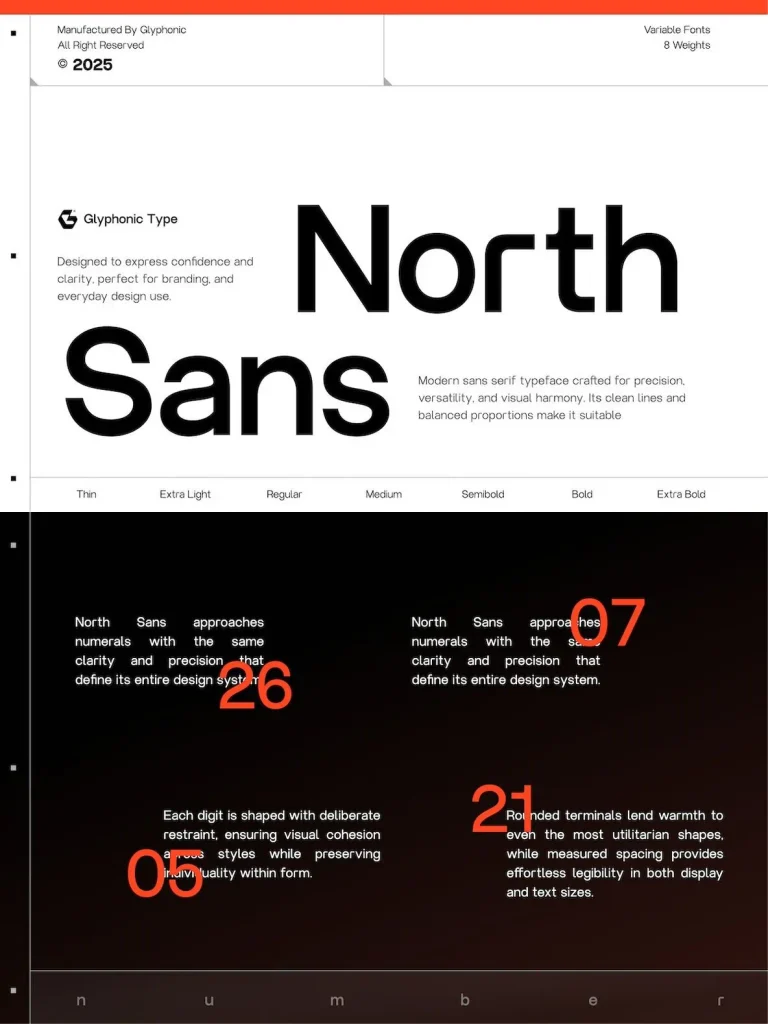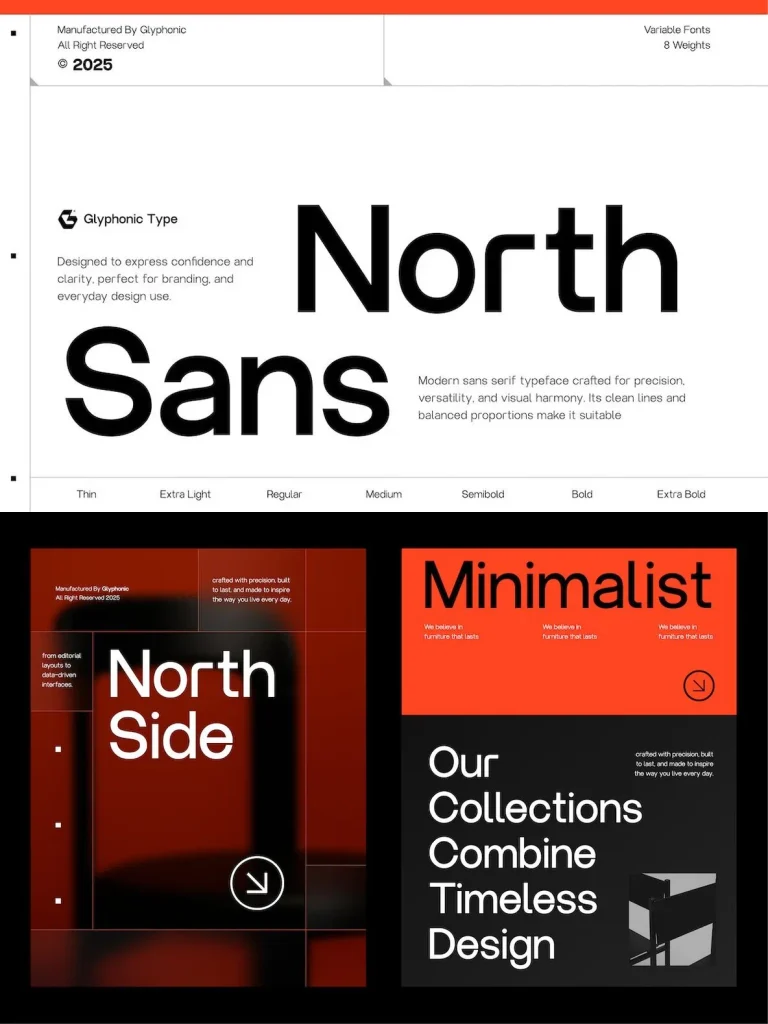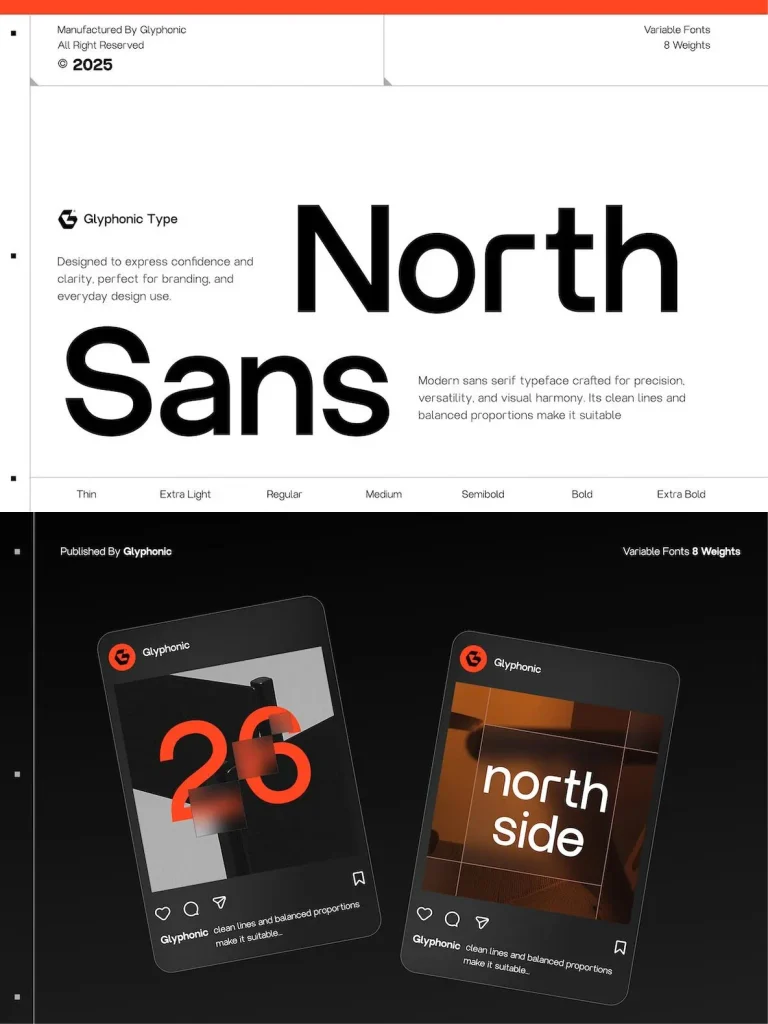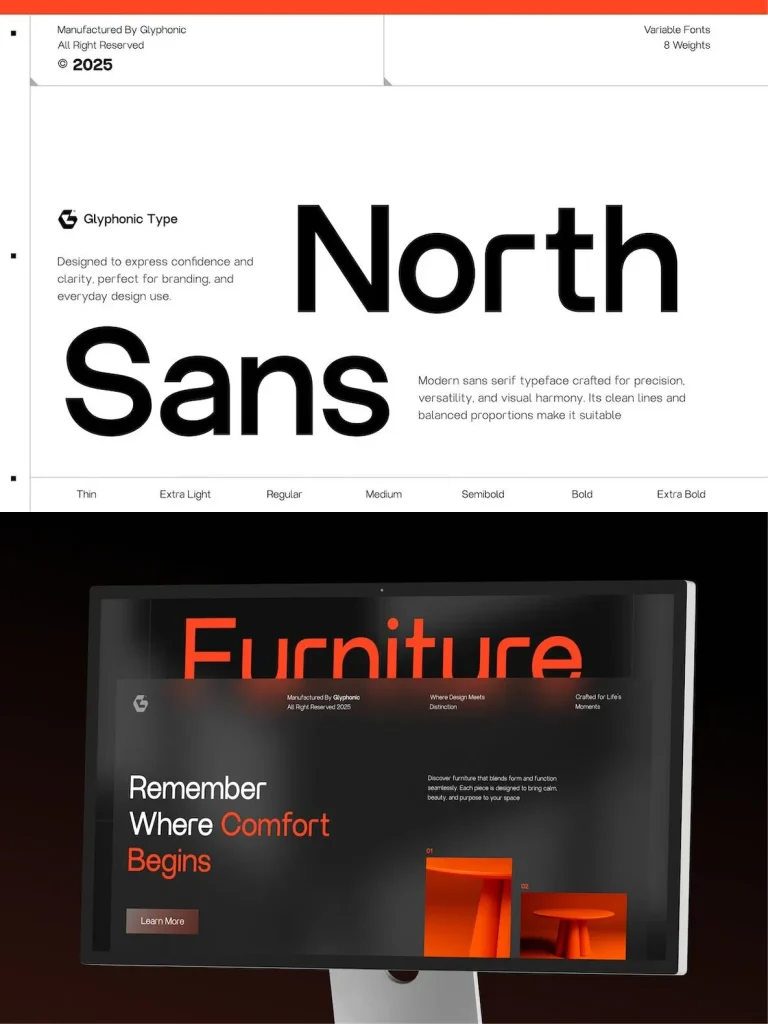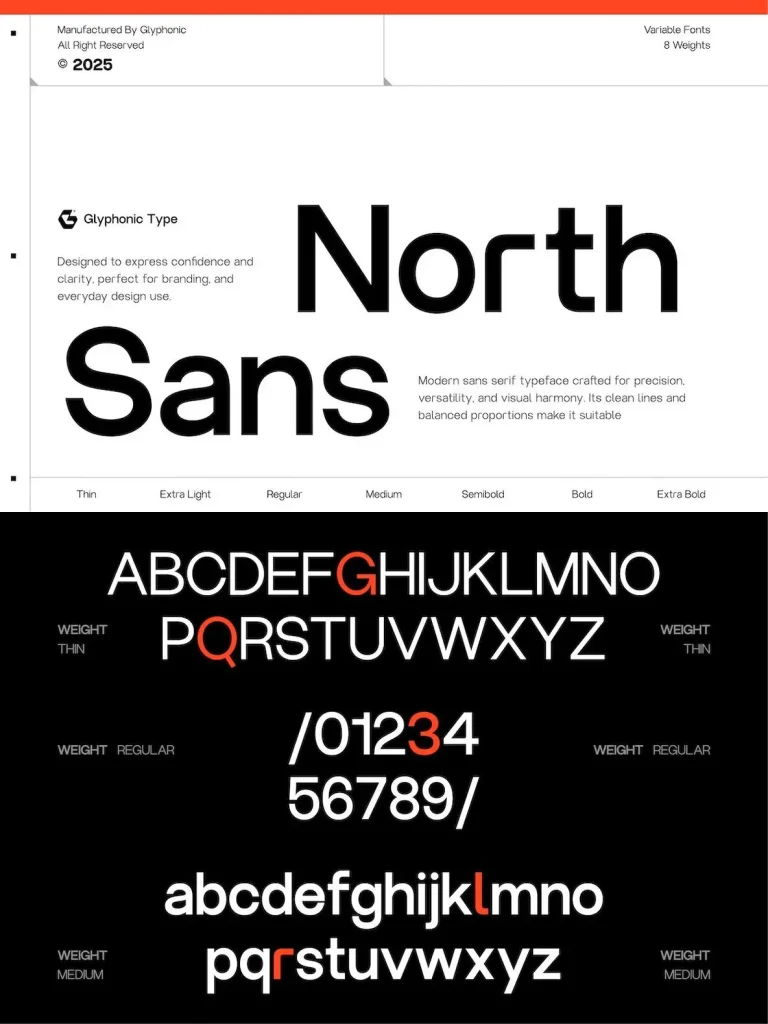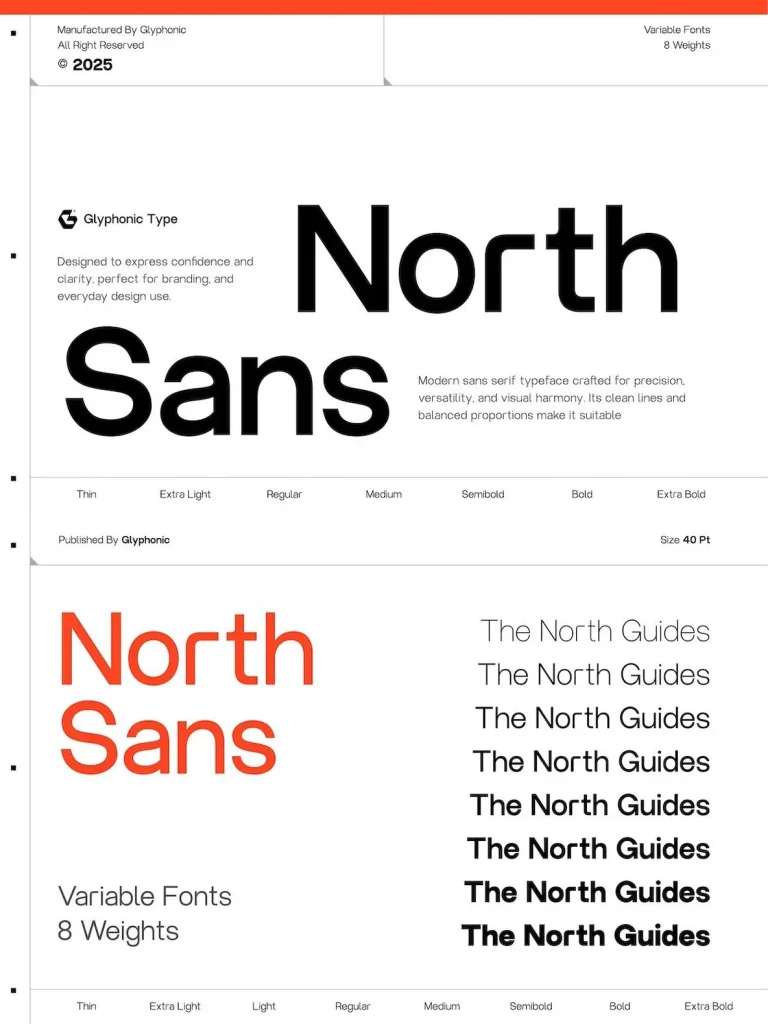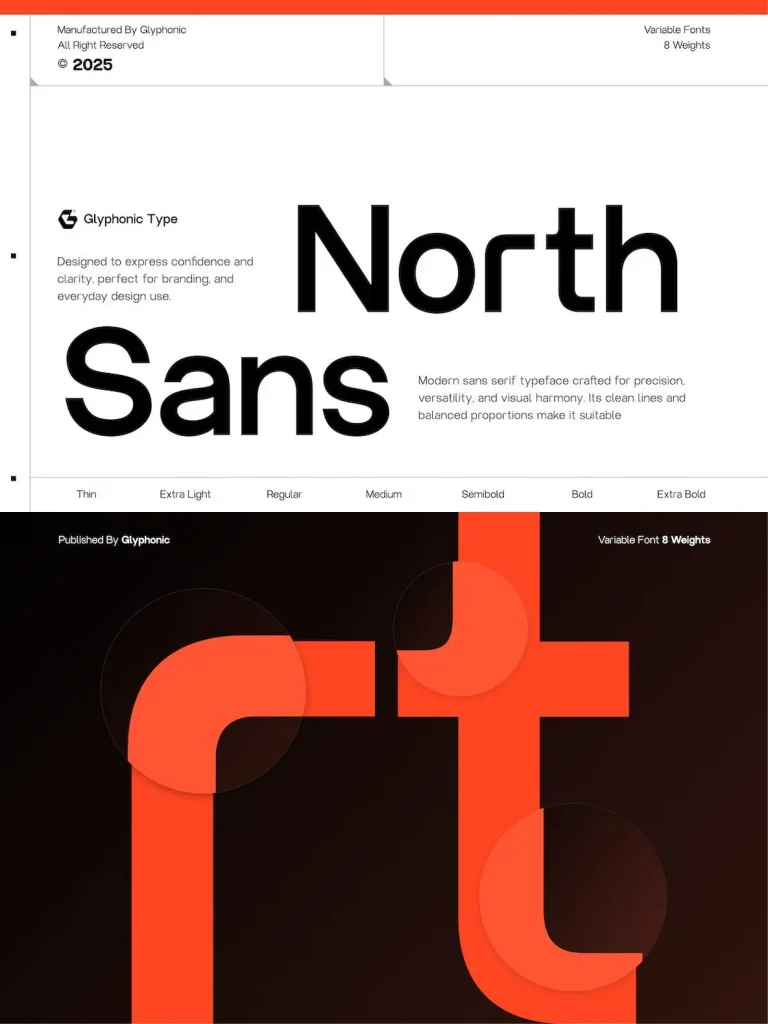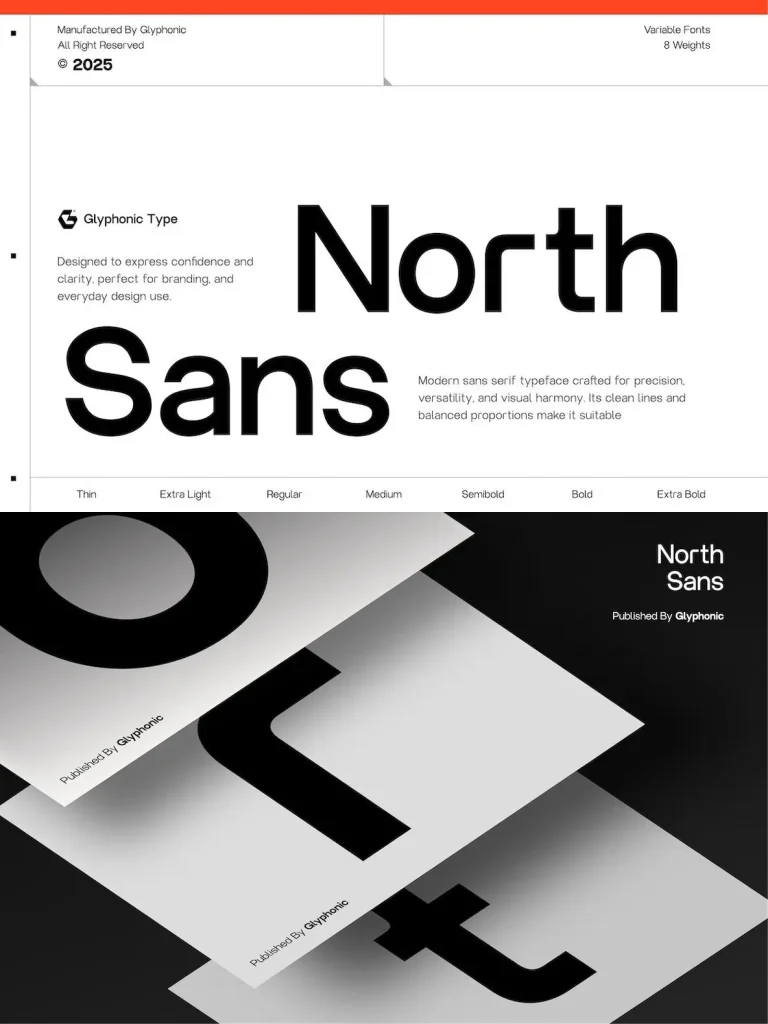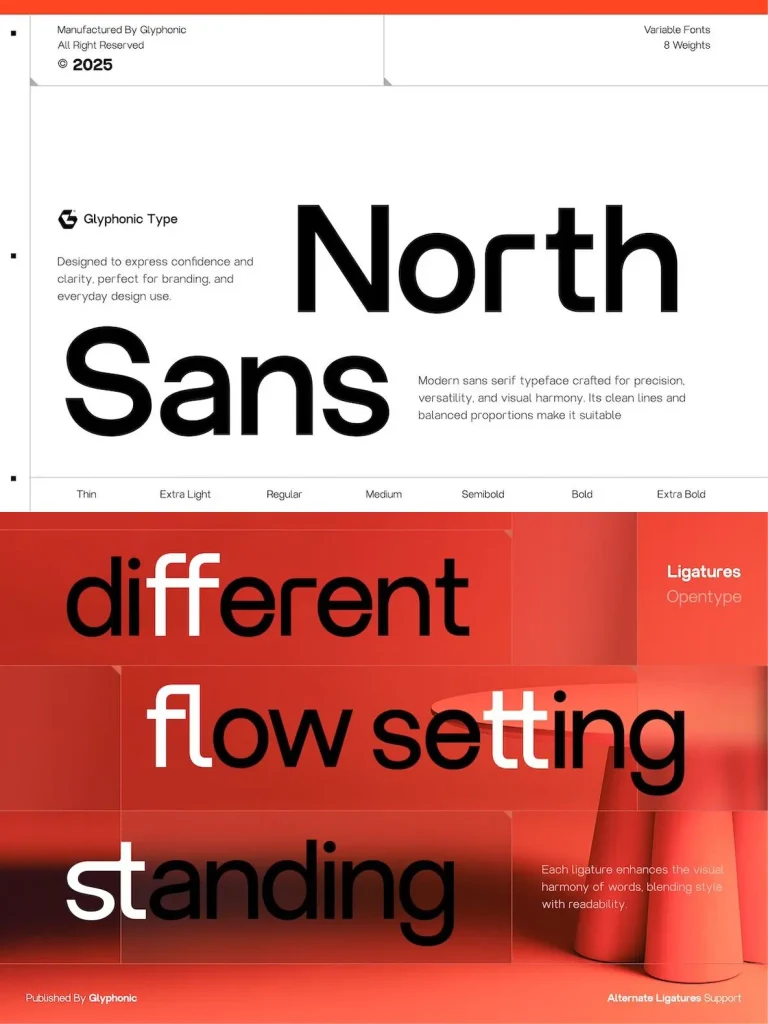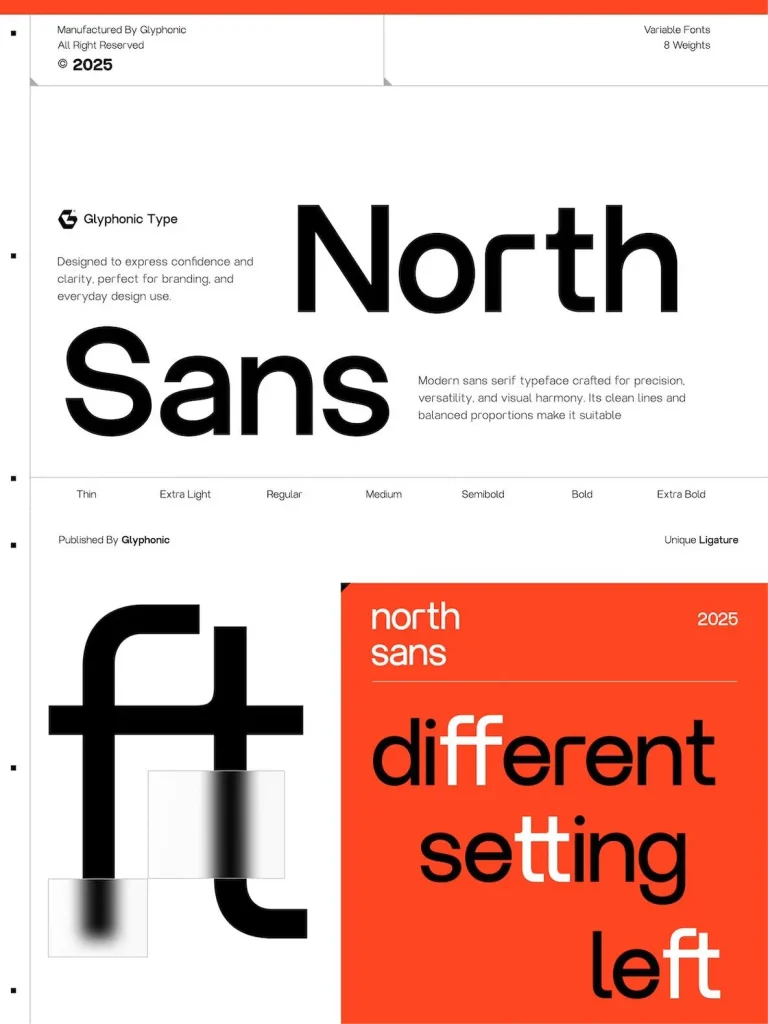
GC North Sans: Neo-Modern Sans Serif With Clarity
GC North Sans stands out as a contemporary choice for designers seeking clarity and meticulous balance in a modern sans serif typeface. Featuring clean lines and precise geometry, this typeface establishes a commanding presence across digital interfaces and printed materials alike. Its straightforward construction provides visual harmony, making GC North Sans a suitable option for branding, editorial projects, and tech-driven visual identities where readability and distinction are critical.
Carefully considered proportions and subtle details ensure adaptability without sacrificing uniqueness. The versatility of GC North Sans makes it a reliable workhorse for interface elements, impactful headlines, or minimalist typographic treatments. Each letterform is crafted to deliver a modern aesthetic while retaining enduring sophistication, supporting designers in projects that demand both function and style.
Uppercase and lowercase characters
Numbers and punctuation
Neo-modern geometric construction